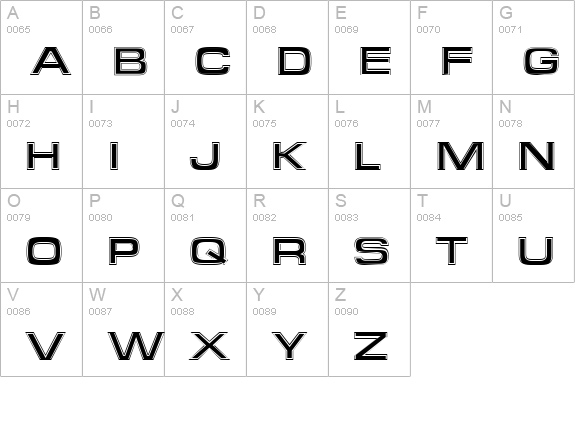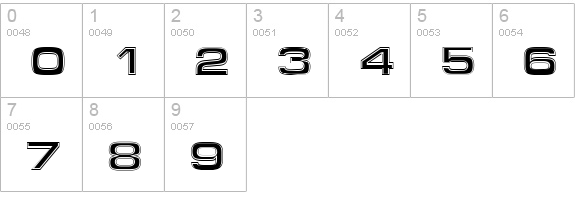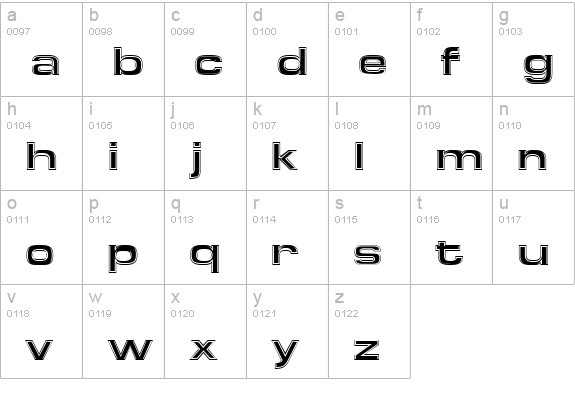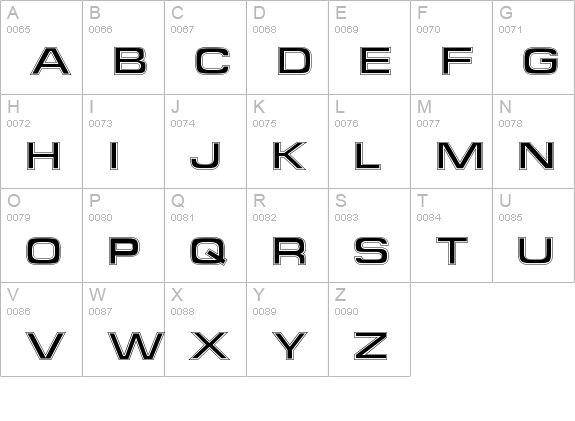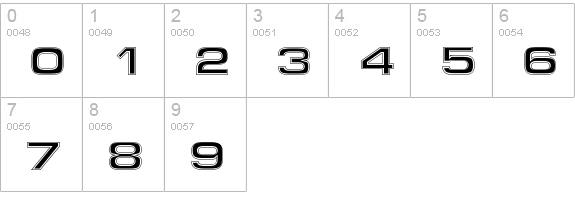
Federation Starfleet 2 Font Details
Federation Starfleet 2 font is a sleek and futuristic typeface inspired by the iconic aesthetics of space exploration. With its sharp angles and bold letterforms, this font exudes a sense of adventure and discovery. Perfect for sci-fi projects, gaming titles, or any design that calls for a touch of cosmic flair. What makes Federation Starfleet 2 font even more appealing is that it is available for free download at FontsMarket.com. Whether you're a graphic designer, a fan of sci-fi culture, or simply looking to add a unique touch to your projects, this font is a must-have in your collection. So don't hesitate to grab this stellar font and let your creativity soar to new heights!